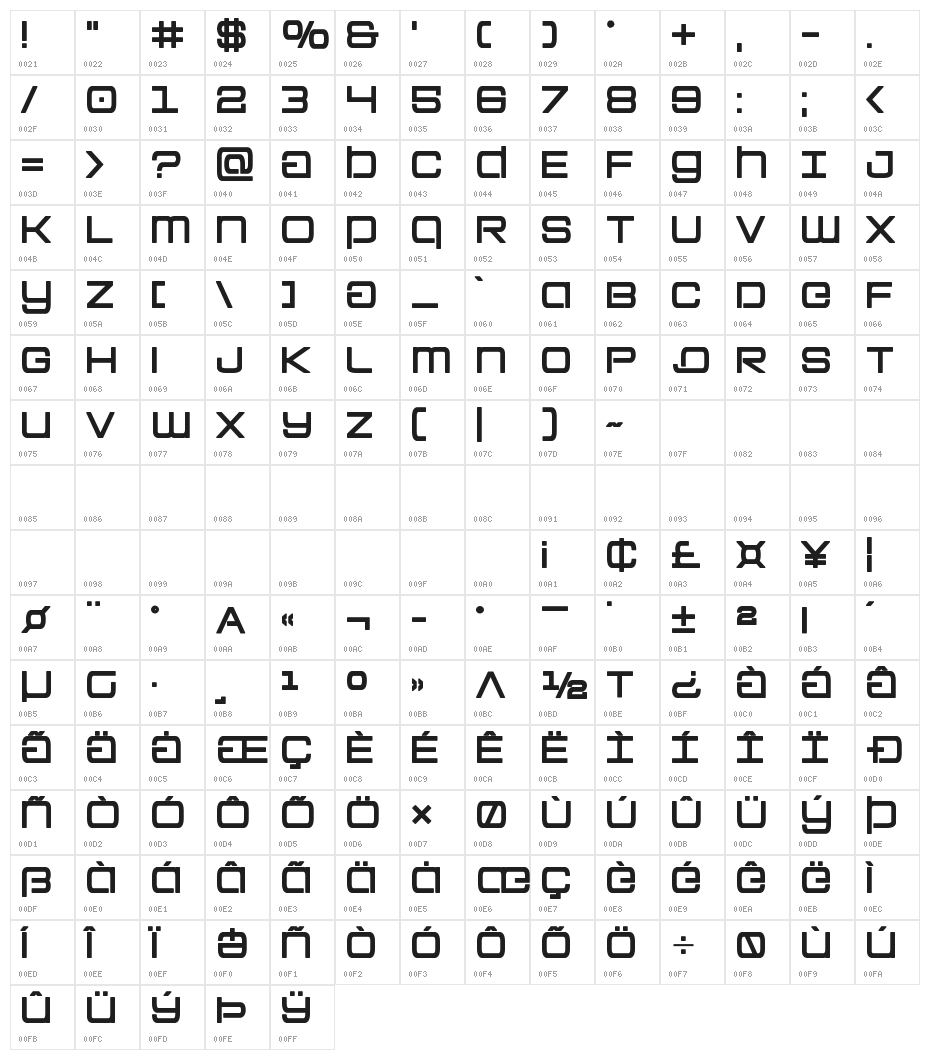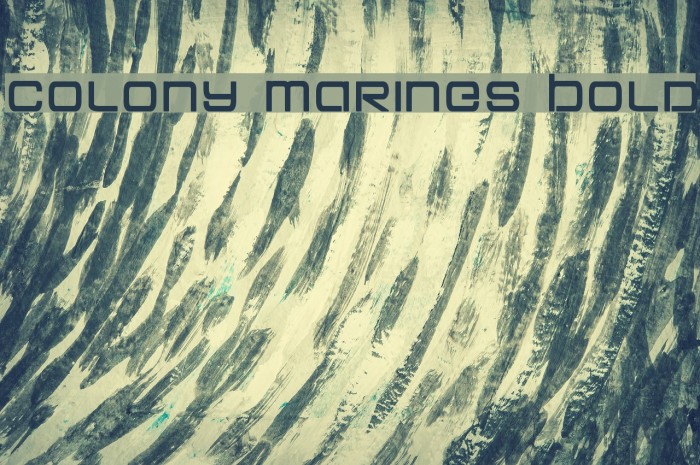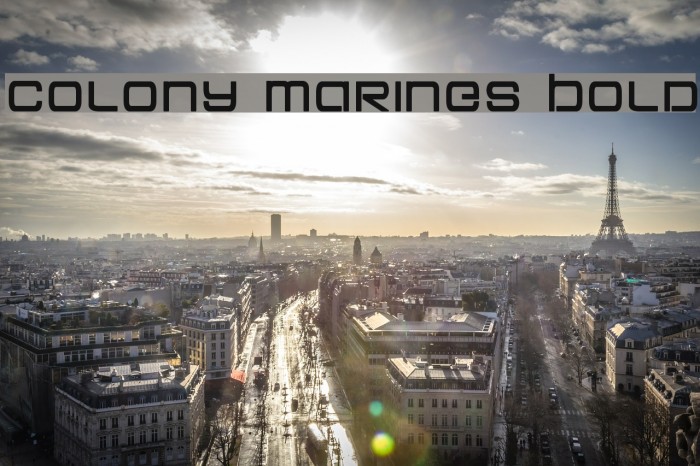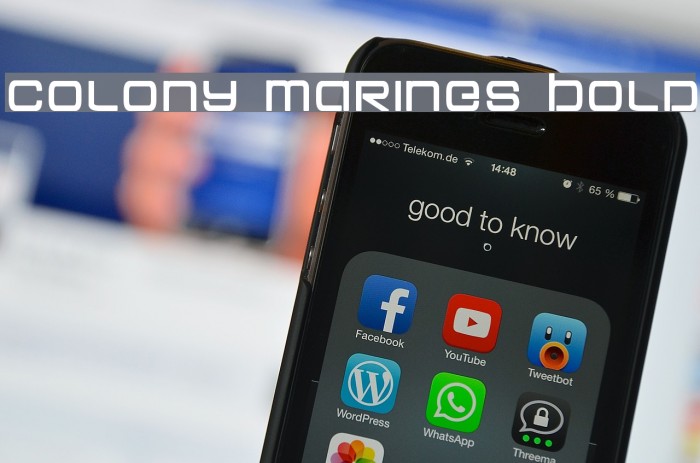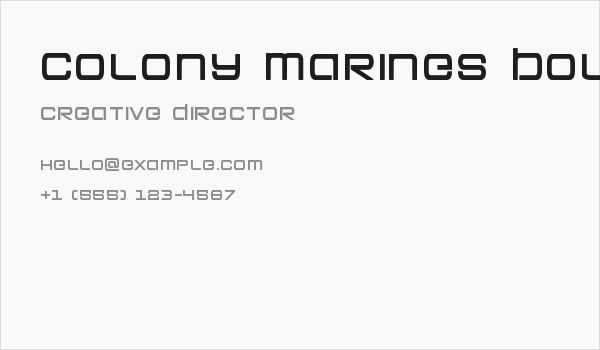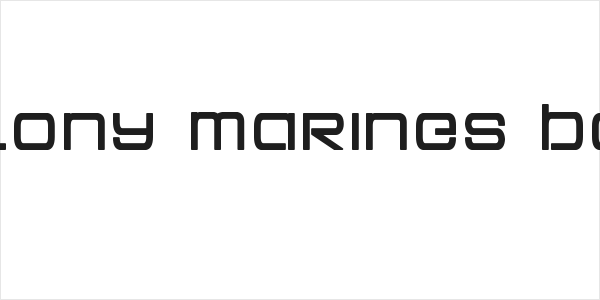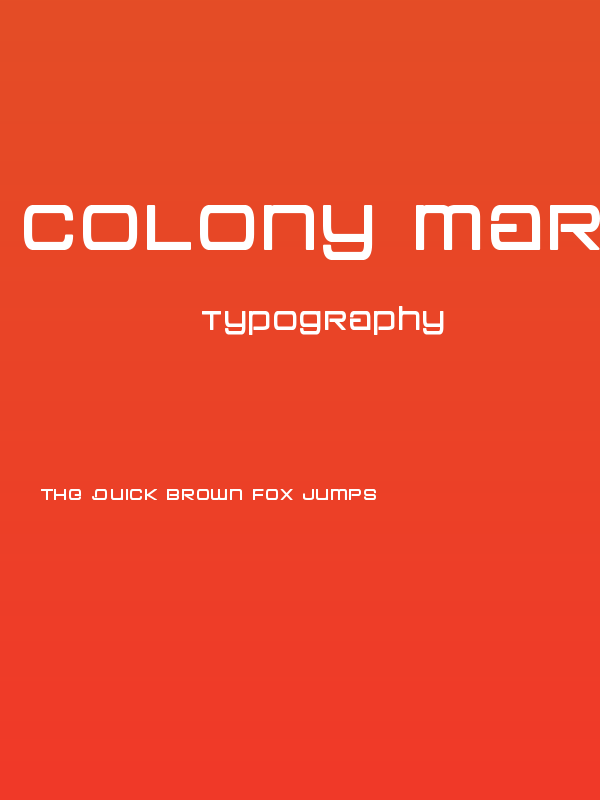
Colony Marines Bold Font
Colony Marines Bold Description
This font features a futuristic and geometric design, characterized by its bold and structured appearance. The letters are crafted with a uniform thickness, giving it a strong and modern look. The characters have a squared-off style with rounded edges, creating a balance between rigidity and softness. The font maintains a consistent height across all characters, enhancing its orderly and clean aesthetic. Its distinct style makes it suitable for projects that require a contemporary and tech-inspired feel.
| Proposed Projects | Ideal for technology branding, sci-fi themed designs, video game interfaces, and modern advertising. |